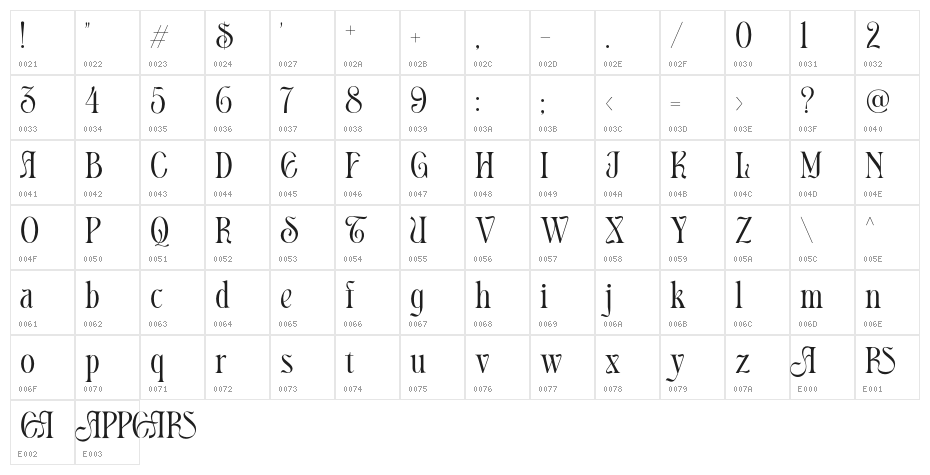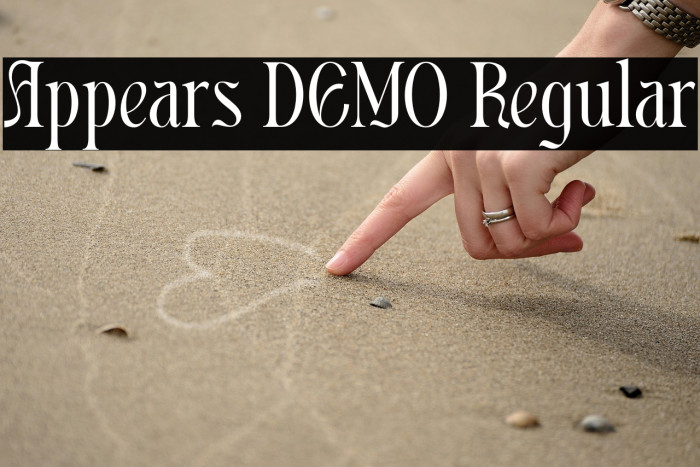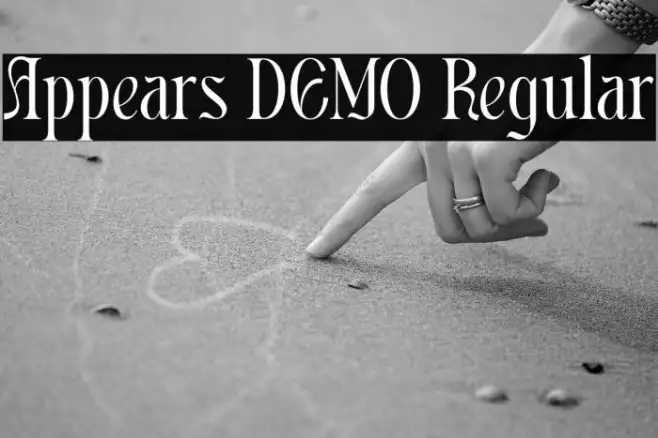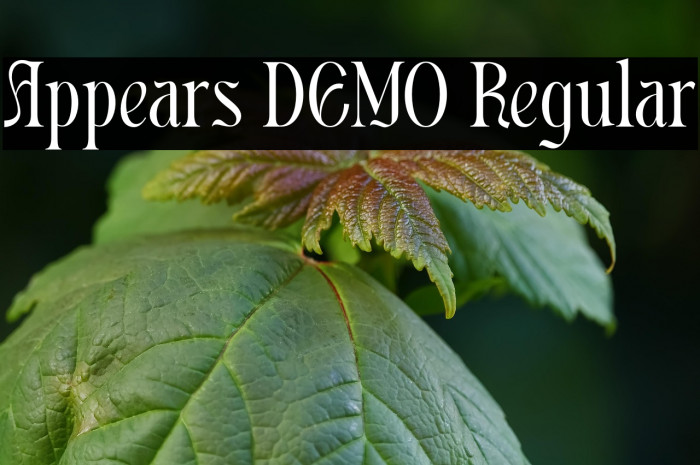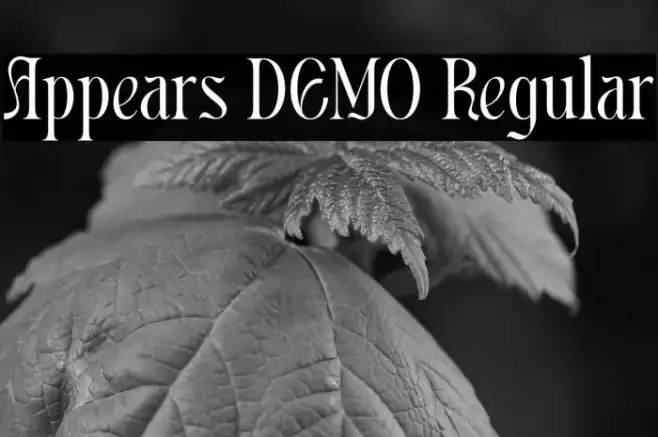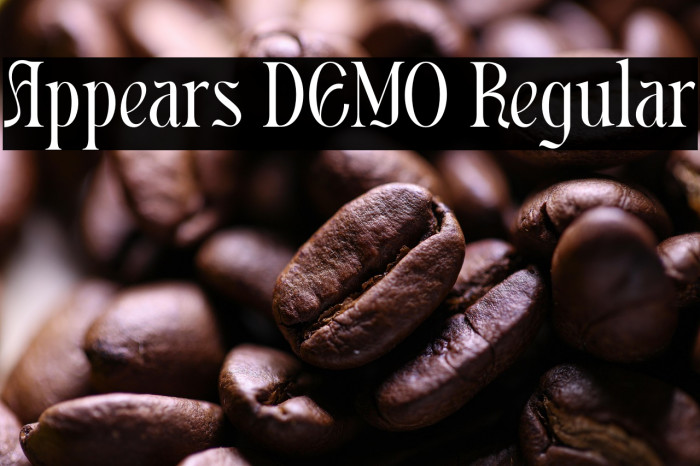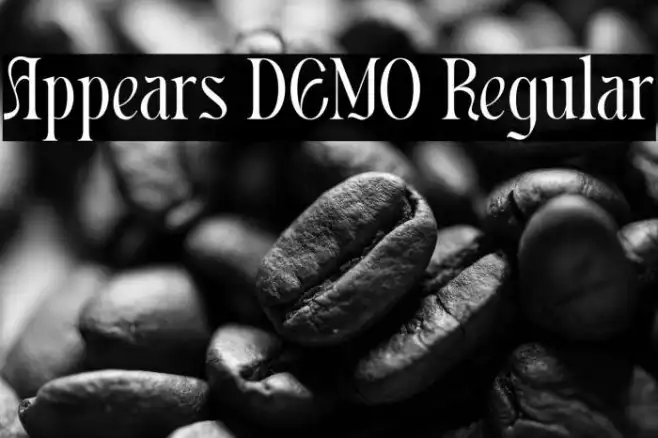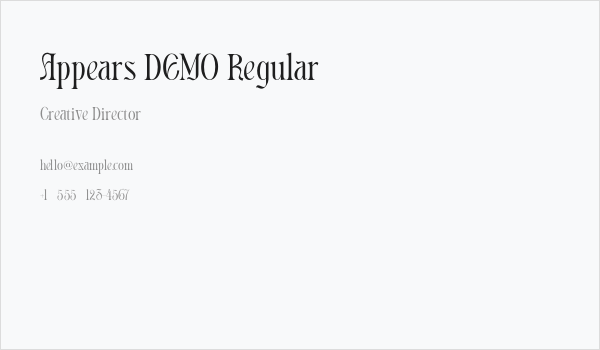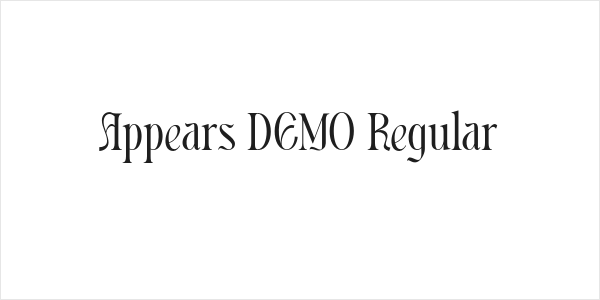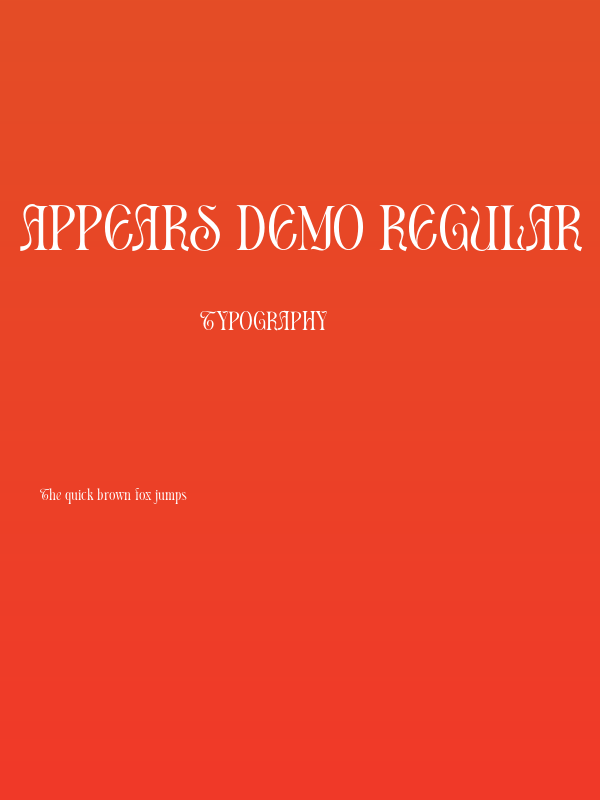
Appears DEMO Regular Font
Appears DEMO Regular Description
This font features a unique blend of classic and modern elements, characterized by its elegant curves and distinctive serifs. The uppercase letters exhibit a graceful, flowing style with a slight flair at the ends, while the lowercase letters maintain a consistent rhythm and balance. The numerals are bold and clear, ensuring readability. Special characters are thoughtfully designed to complement the overall aesthetic. The font's high contrast between thick and thin strokes adds a touch of sophistication, making it suitable for a variety of design applications.
| Use Case | Headlines, Logos, Editorial design |
| Proposed Projects | Ideal for luxury branding, editorial design, wedding invitations, and high-end packaging. |